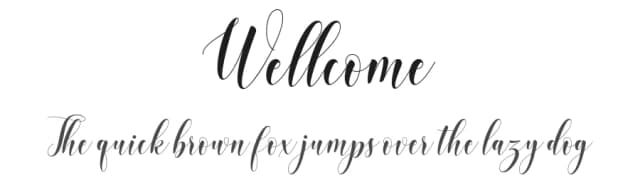
Flowing letterforms that balance calligraphic refinement with contemporary ease sit at the heart of Wellcome, a modern script designed by Greentype. Natural stroke variation and expressive swashes create motion that feels organic rather than artificially embellished, giving the font a genuinely handwritten sensibility.
This script excels across wedding invitation suites, where its romantic quality works equally well with minimal layouts and traditional formality. Engagement announcements, event signage for boutique venues, and photography watermarks all gain real polish and personality through its poised yet approachable voice. The font also shines in greeting card lettering and cosmetics or boutique skincare packaging, where playful swashes enliven restrained designs without overwhelming visual hierarchy or competing with other elements. Designers building handwritten branding systems and personal stationery discover that its modern calligraphic foundation offers consistency and flexibility across different scales and applications.
Wellcome Font is a script font that shines as a display or heading face. Pair it with a clean sans-serif or serif font for body text β the contrast creates a clear hierarchy while the two styles stay balanced and easy to read.